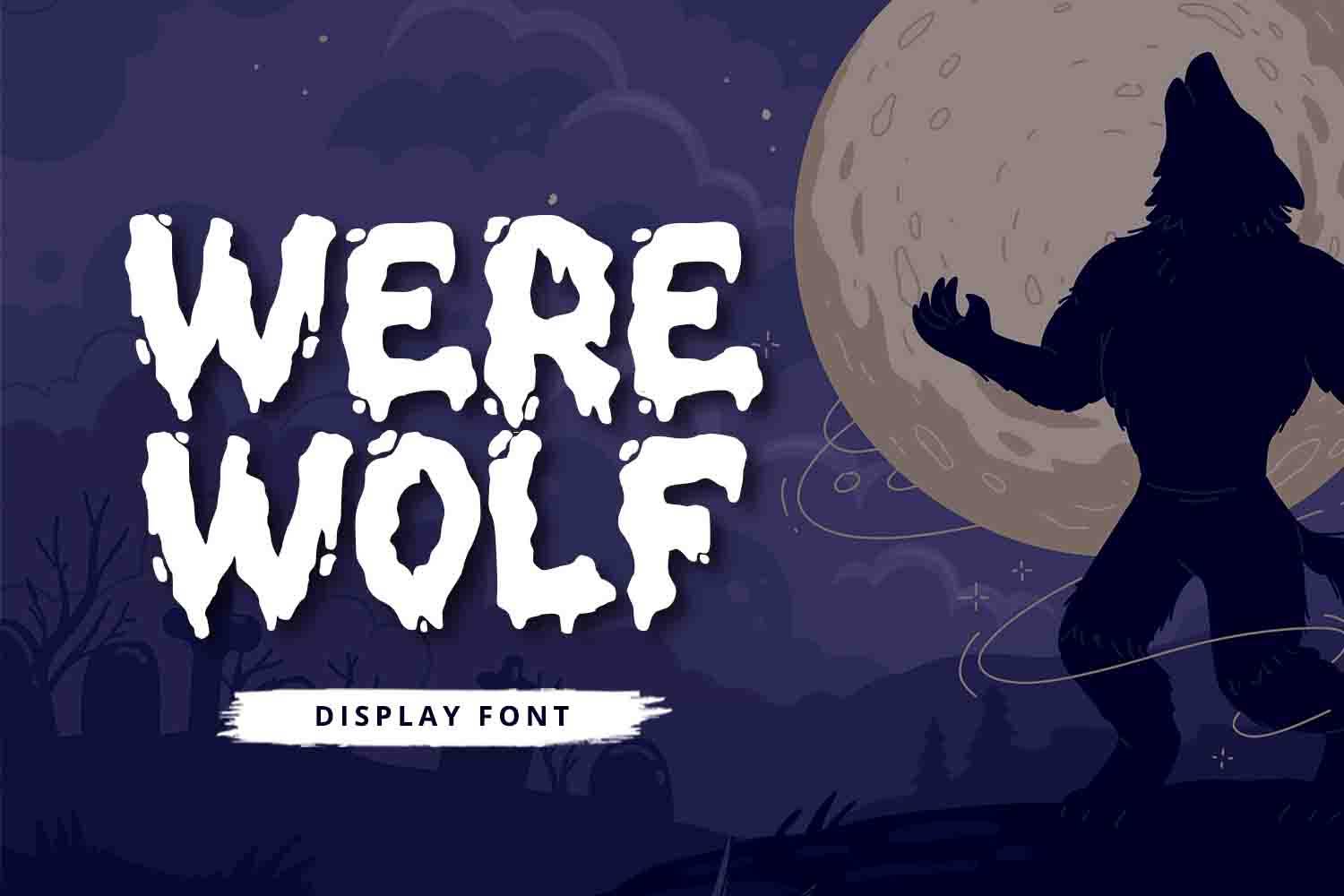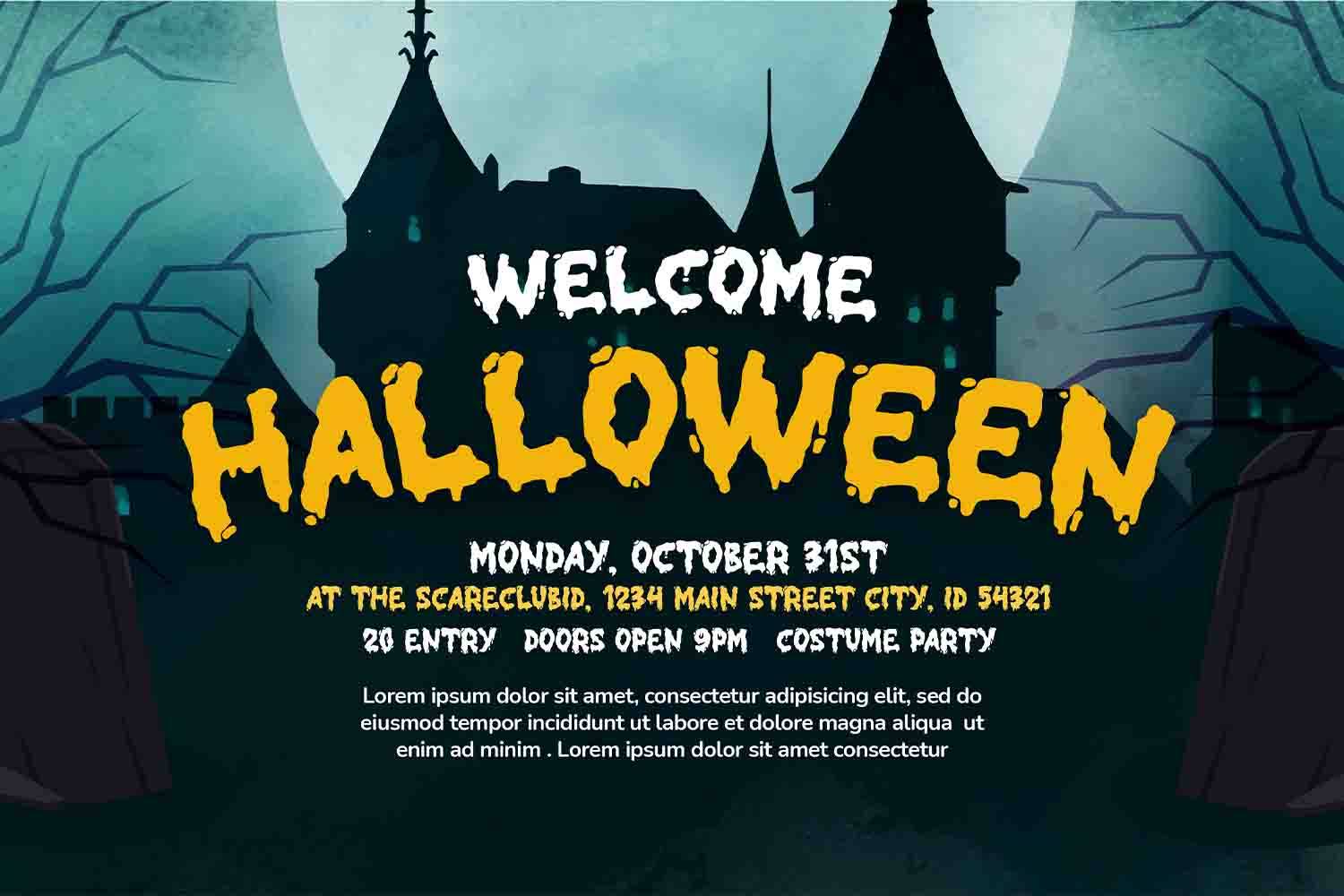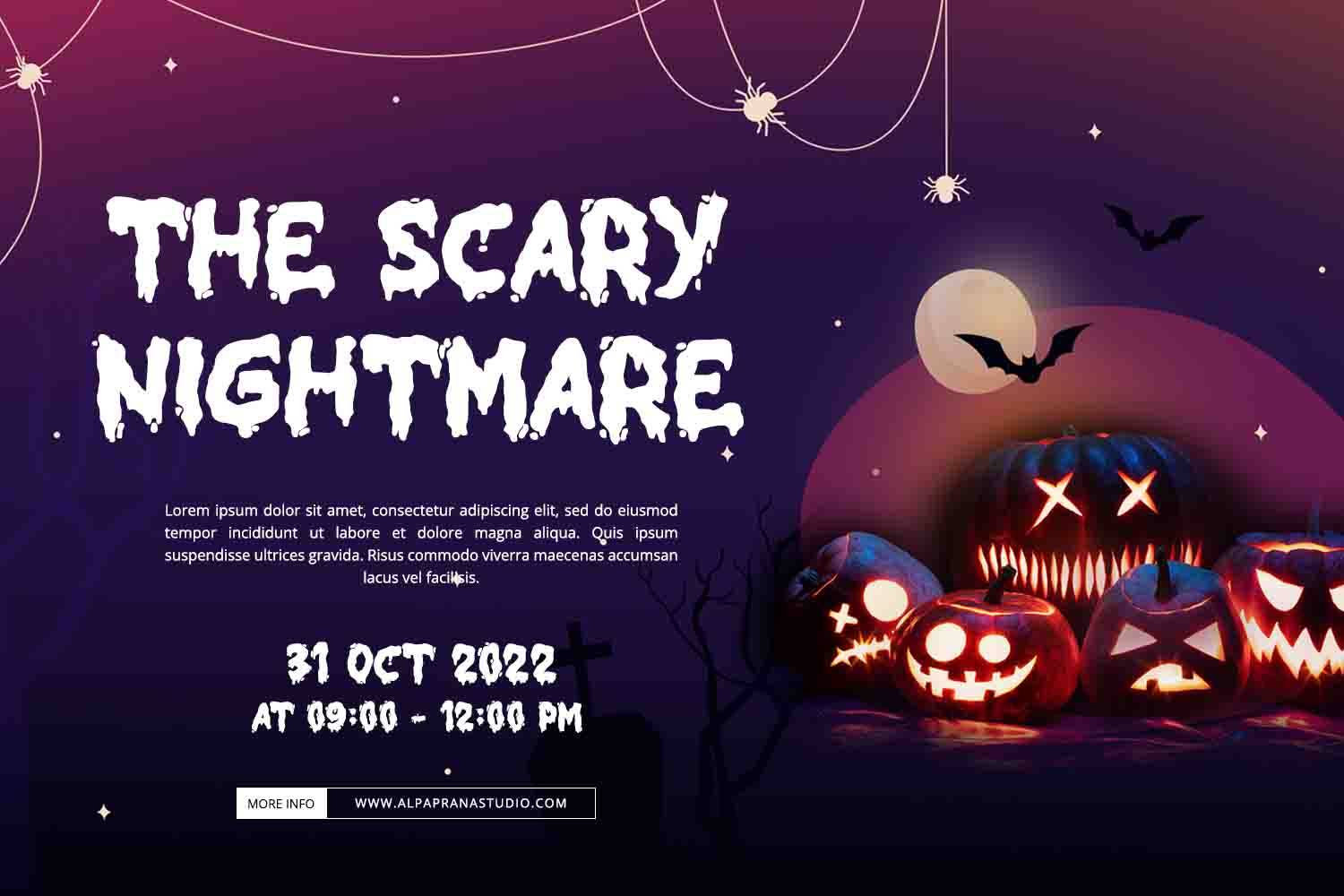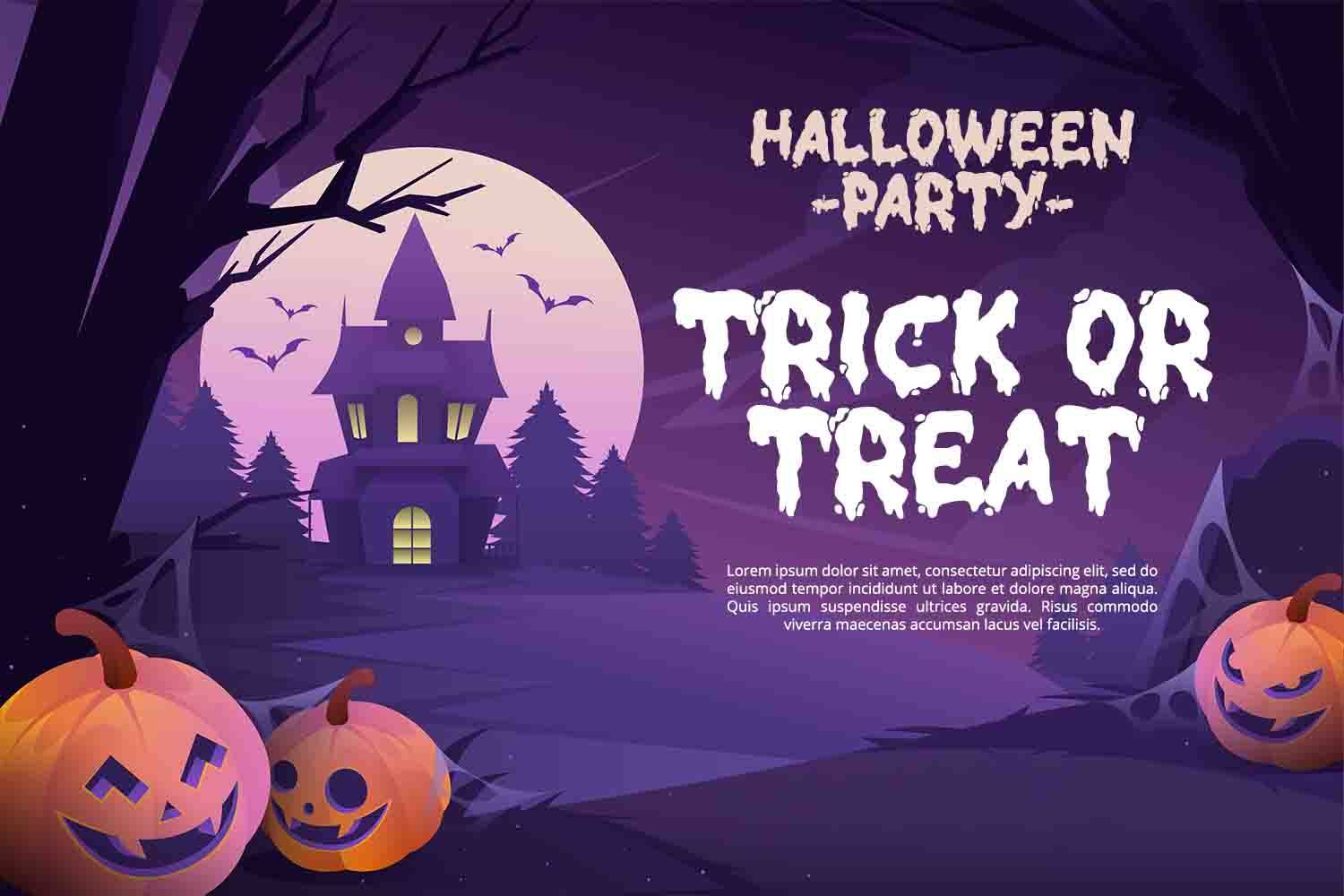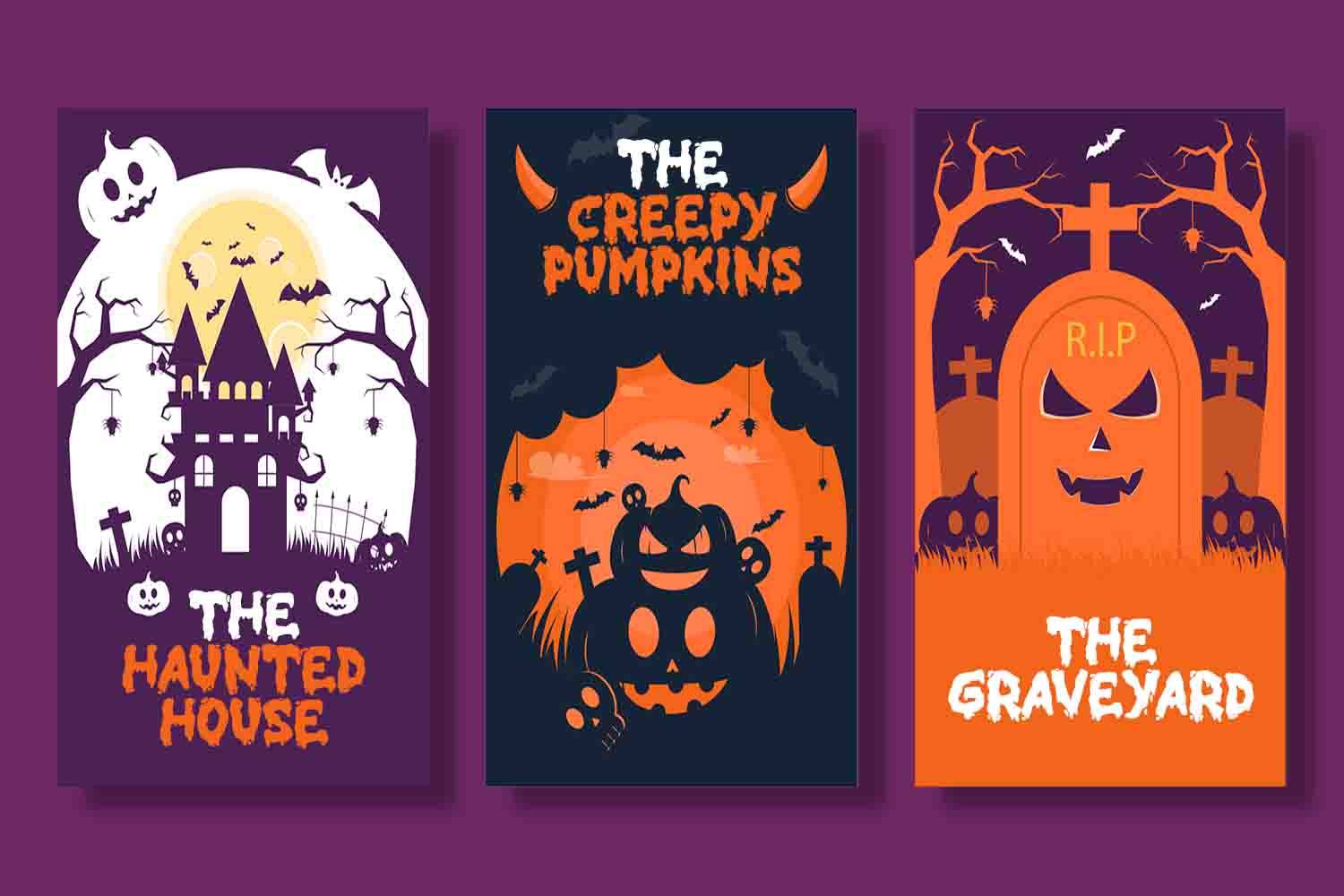
Werewolf Font is a bold, playful display typeface with a dripping, textured design that evokes a spooky, Halloween-inspired vibe. Its all-caps style, thick strokes, and irregular edges make it perfect for creating eye-catching headlines and themed branding with a fun yet eerie personality. This font works best for posters, event invitations, and any creative project seeking a dramatic and adventurous look.
Werewolf Font
About Werewolf Font